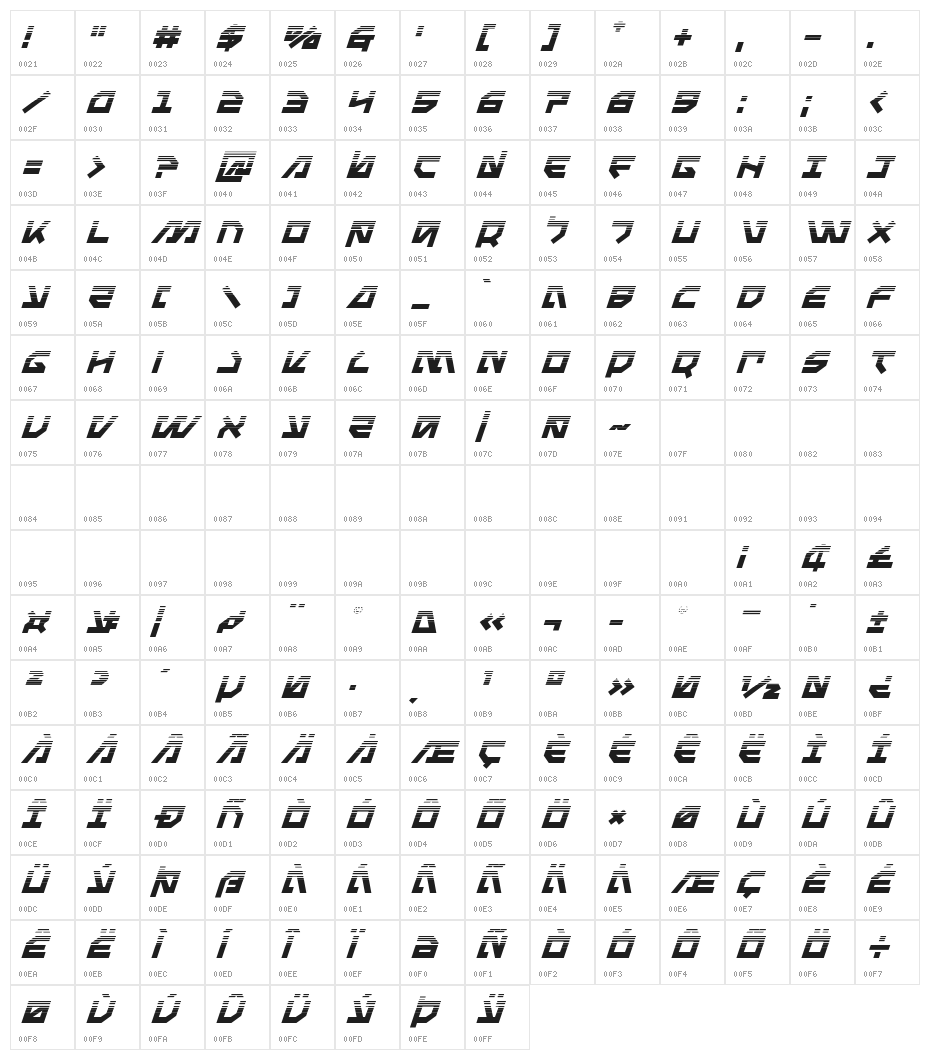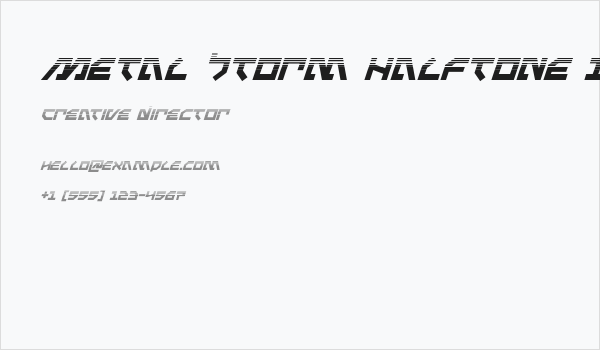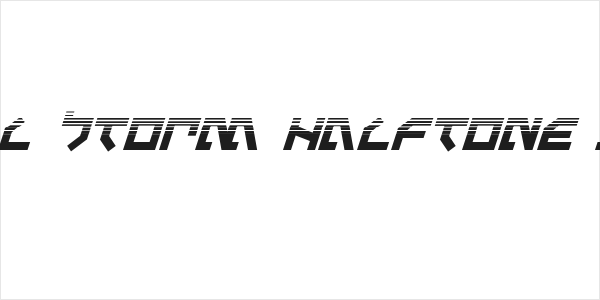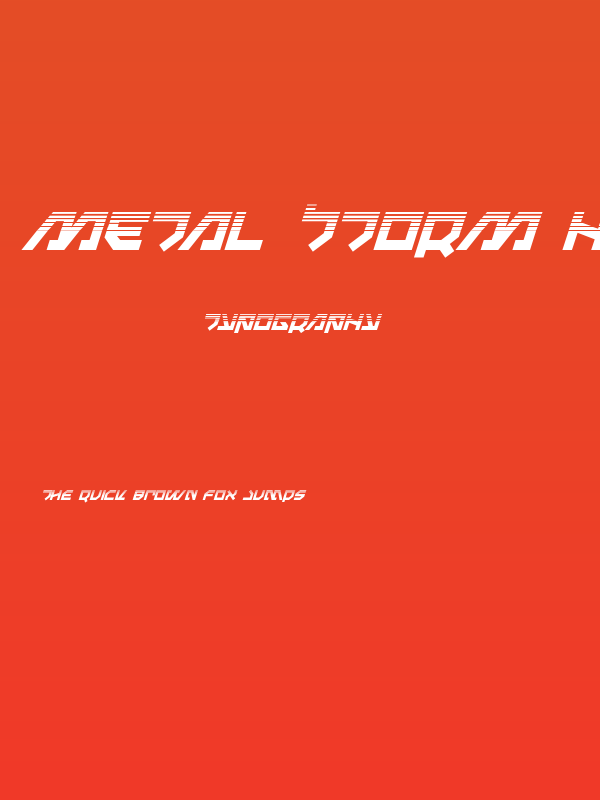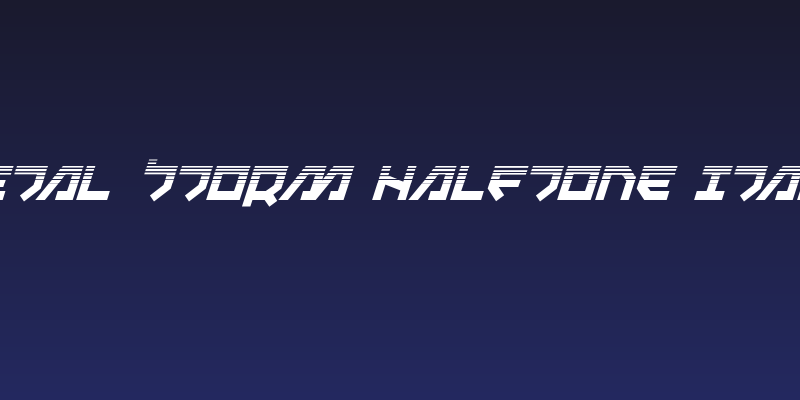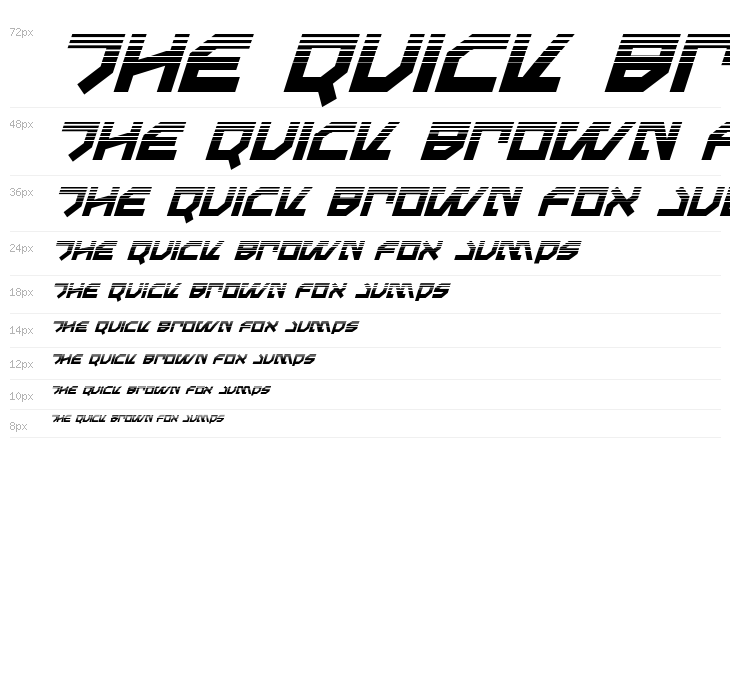
Metal Storm Halftone Italic Font
Metal Storm Halftone Italic Description
This font features a bold, futuristic design with a distinct halftone effect. The characters are italicized, giving a sense of motion and speed. Each letter is constructed with sharp, angular lines and a striped pattern that adds depth and texture. The uppercase and lowercase letters maintain a consistent style, while the numerals and special characters complement the overall aesthetic. This font's unique design makes it stand out, ideal for projects that require a modern and edgy look.
| Proposed Projects | Ideal for sci-fi themed posters, video game titles, tech branding, and edgy graphic designs. |